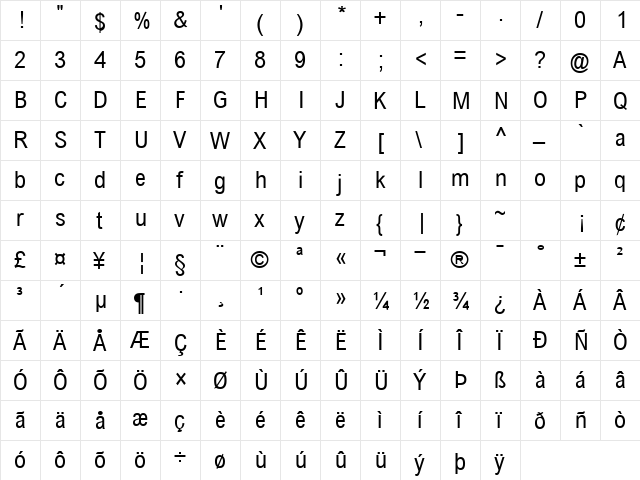
Arial MT Condensed Normal
Design Context for Arial MT Condensed Typeface
Arial MT Condensed takes a measured approach to typography — its balanced proportions and neutral character make it a reliable workhorse for both digital and print work. The condensed width makes it efficient for tight spaces without sacrificing legibility.